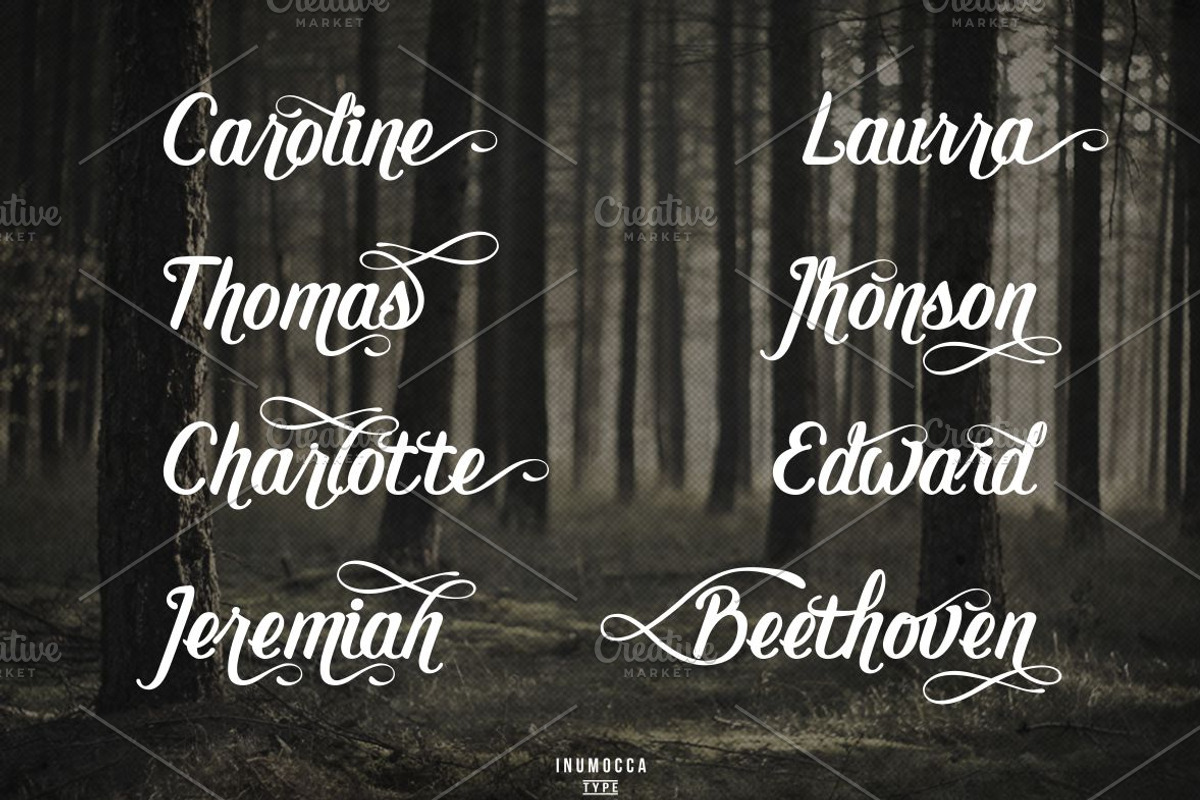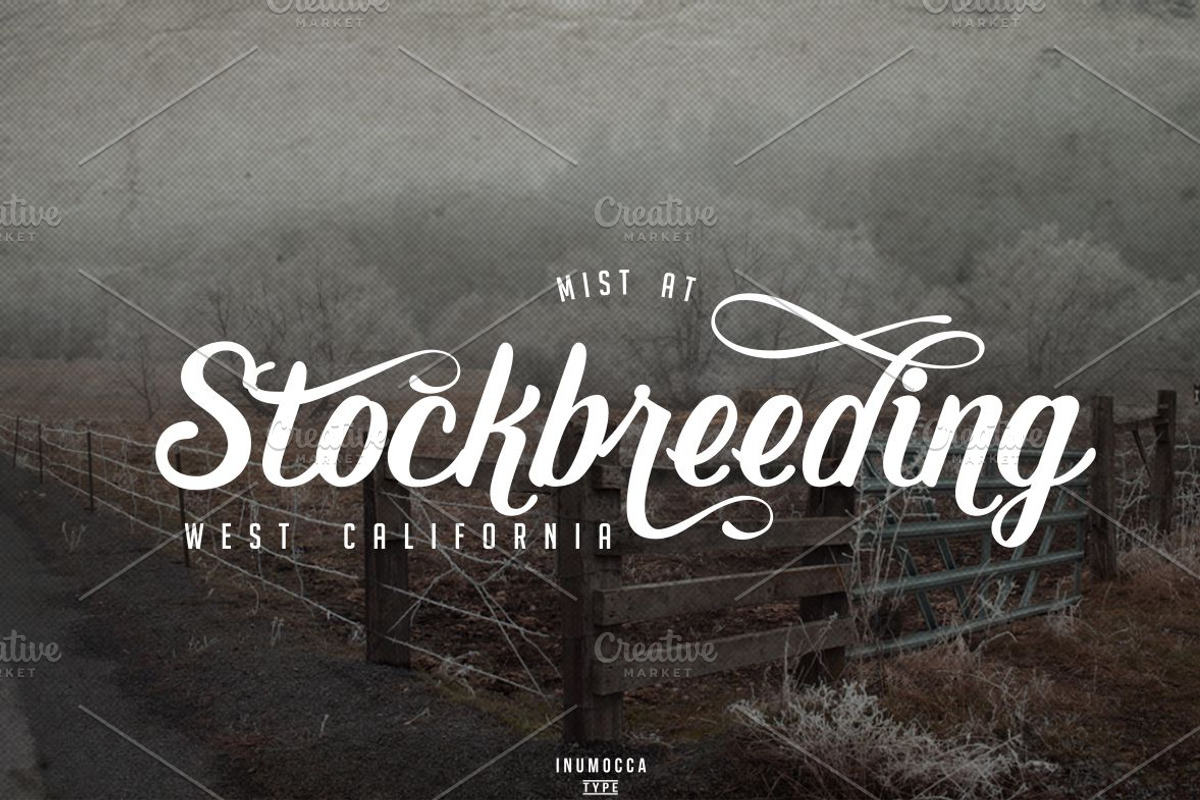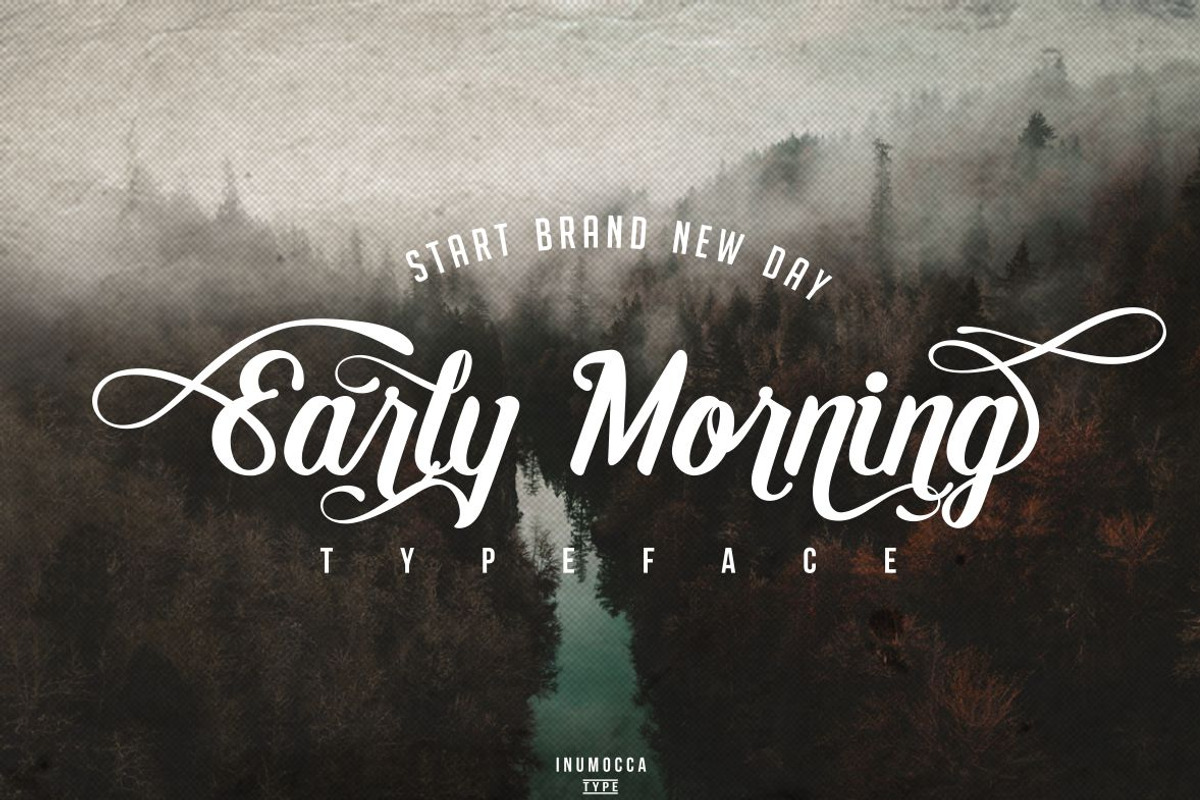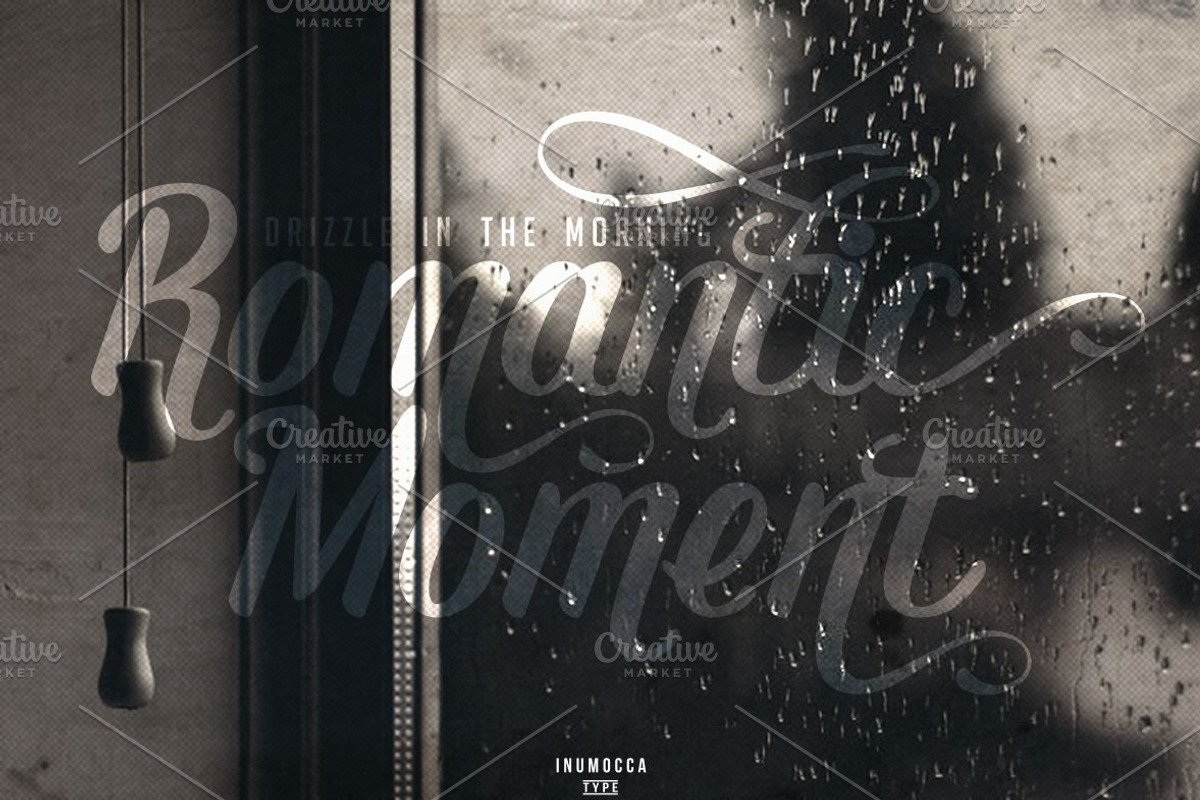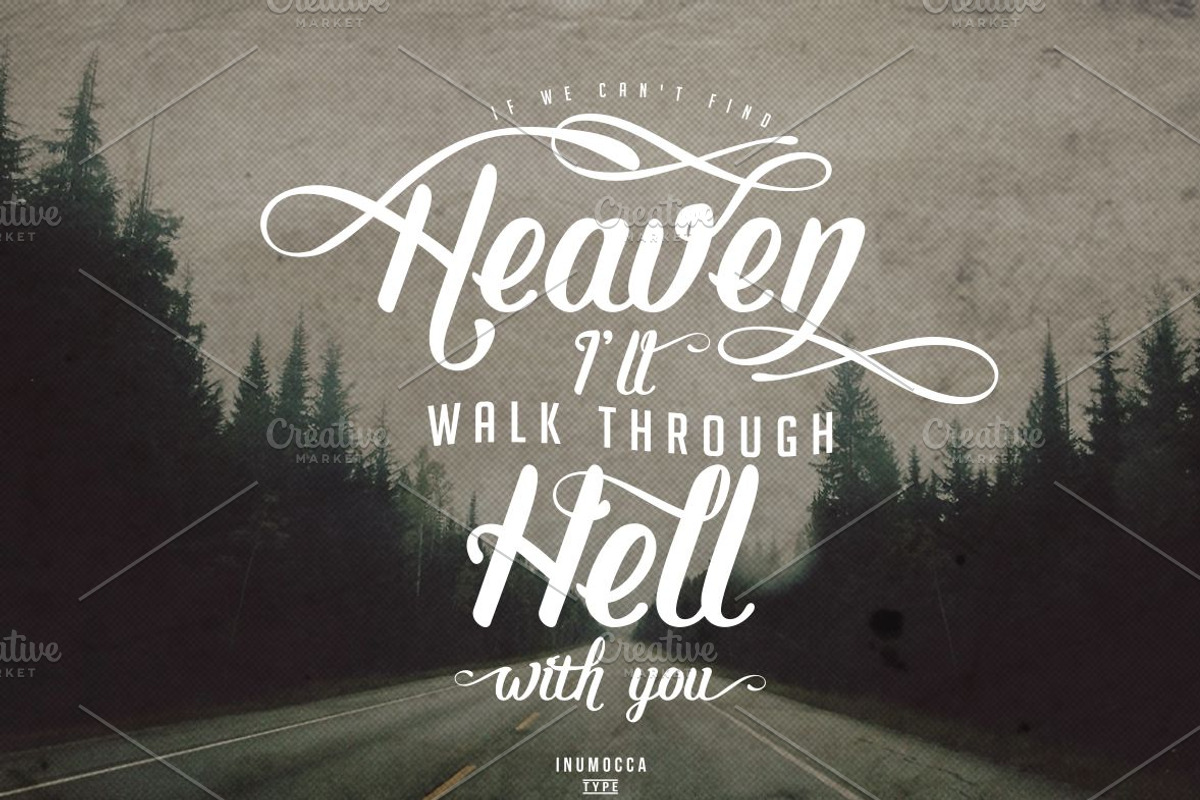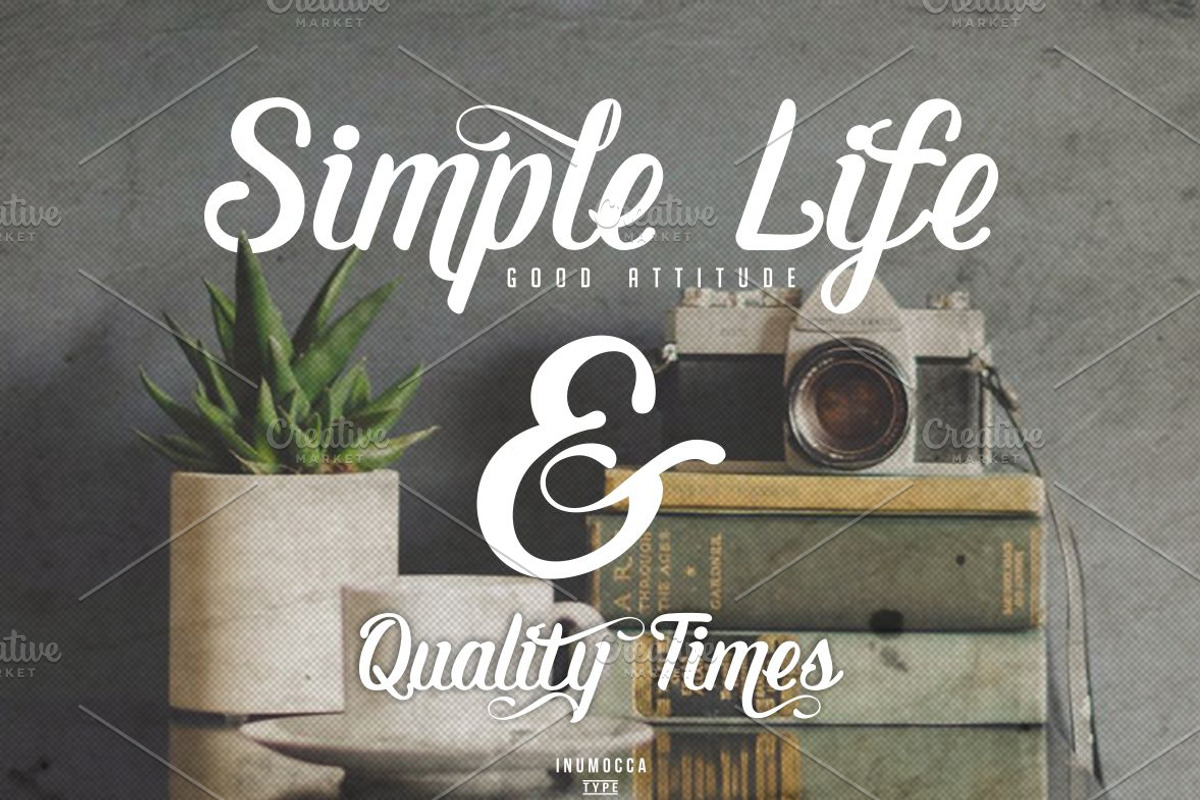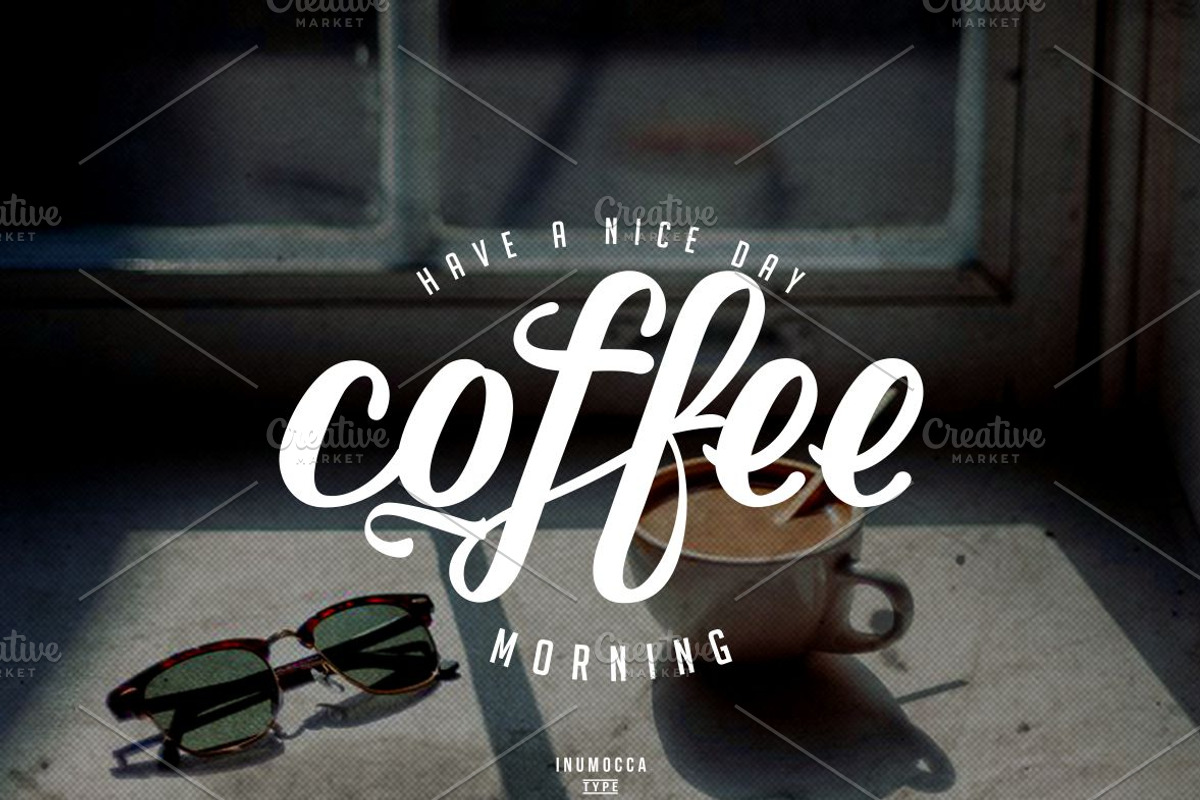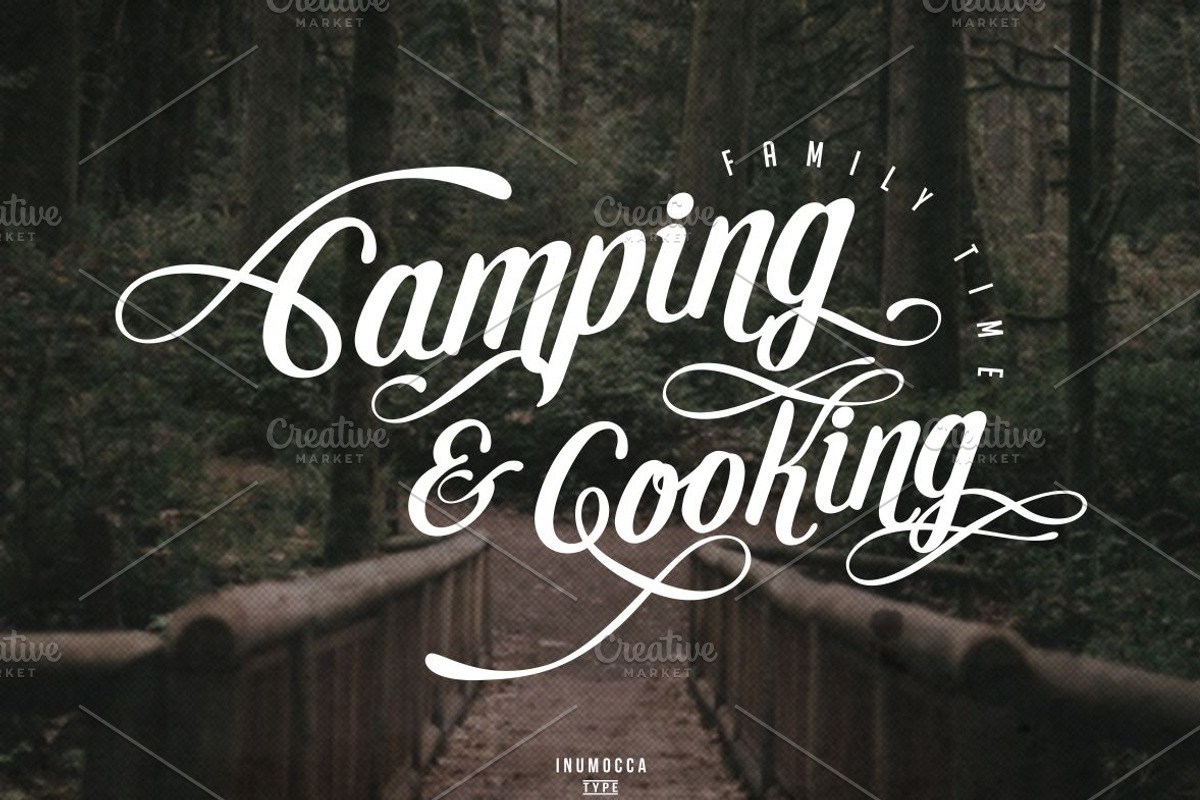
Early Morning Typeface
Early Morning Typeface by inumoccatype is a font selected for branding, posters, packaging, typography.
- (update 22 September 2016) Unique glyphs with cool Stylistic Alternates Swash Stylistic Sets 1,2,3,4,5 Ligatures Multilingual characters UPP
Early Morning Typeface by inumoccatype fits naturally into Branding, posters, packaging, typography.